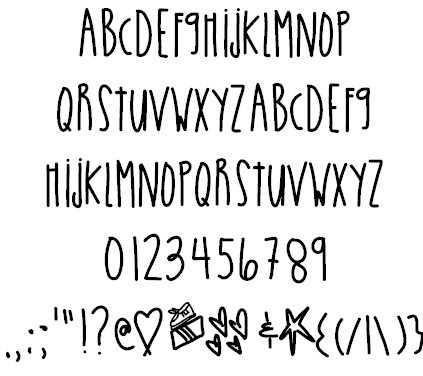
Free WarmestSummer Font
Take a look at this beautiful free warmestsummer font. This typeface file was found from the amazing source called Font Space. This is absolutely fancy font so you can easily make world-class designs.